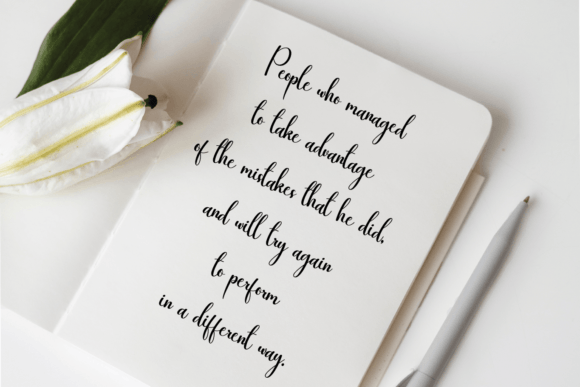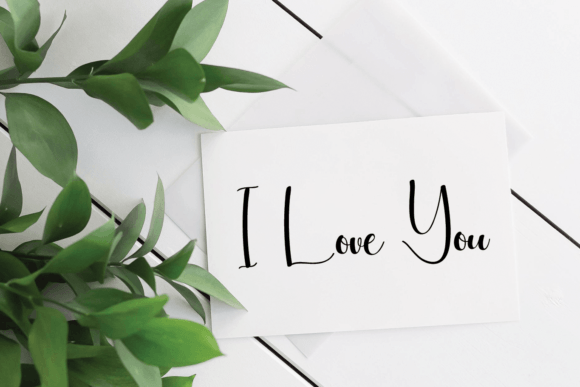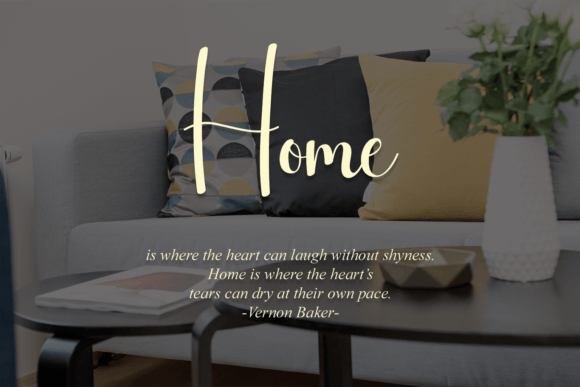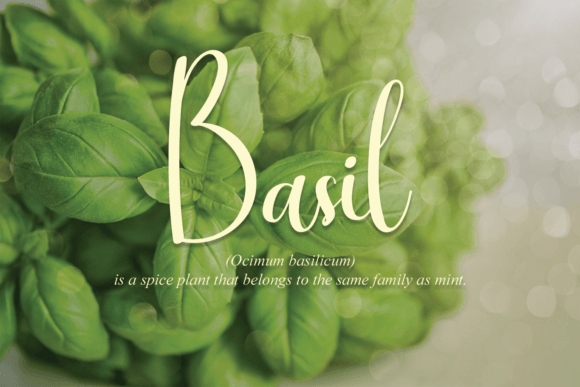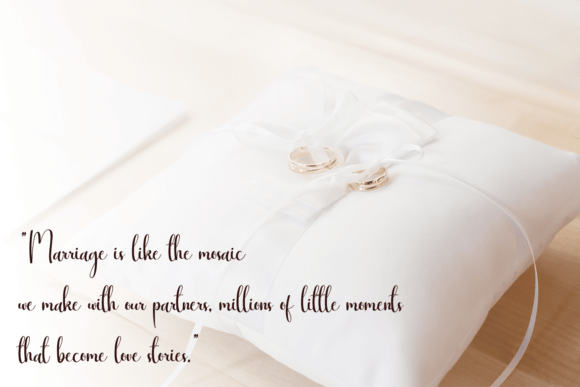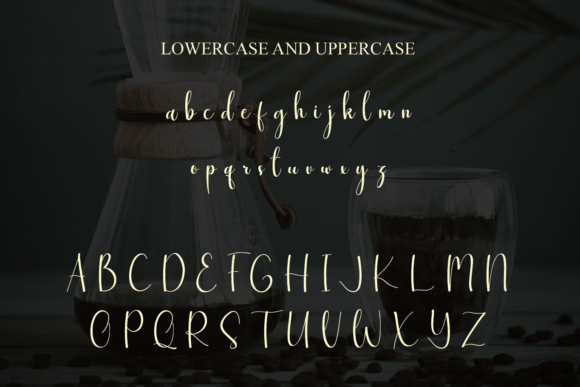
Introducing Americano Font: Elevate Your Designs with Elegance
Are you a designer or crafter looking for a font that can add a touch of sophistication and elegance to your creative projects? Look no further than Americano Font, a delicate, elegant, and flowing handwritten font that is sure to take your designs to the next level.
The Characteristics of Americano Font
Americano Font is a beautifully crafted handwritten font that boasts well-balanced characters, making it an ideal choice for a wide range of design applications. Its delicate and flowing lines give it a sense of elegance and refinement, perfect for projects that require a touch of sophistication.
Why Choose Americano Font?
So, what sets Americano Font apart from other fonts? Here are just a few reasons why designers and crafters love this font:
- Versatility: Americano Font is incredibly versatile, making it suitable for a wide range of design applications, from wedding invitations and branding materials to packaging and digital graphics.
- Elegance: The font’s delicate and flowing lines give it an air of elegance and sophistication, making it perfect for projects that require a touch of refinement.
- Readability: Americano Font is highly readable, even at small sizes, making it ideal for body text and captions.
- Uniqueness: With its unique and distinctive character set, Americano Font is sure to help your designs stand out from the crowd.
How to Use Americano Font in Your Designs
Americano Font is incredibly easy to use and can be incorporated into a wide range of design projects. Here are a few ideas to get you started:
- Wedding Invitations: Add a touch of elegance to your wedding invitations with Americano Font, perfect for formal and informal wedding stationery.
- Branding Materials: Use Americano Font to create sophisticated branding materials, such as business cards, letterheads, and packaging.
- Digital Graphics: Incorporate Americano Font into your digital graphics, such as social media graphics, blog headers, and email newsletters.
- Crafting Projects: Use Americano Font to add a personal touch to your crafting projects, such as handmade cards, gift tags, and scrapbooking pages.
Tips for Getting the Most Out of Americano Font
To get the most out of Americano Font, here are a few tips to keep in mind:
- Experiment with Font Sizes: Americano Font looks great at a range of font sizes, so don’t be afraid to experiment to find the perfect size for your design.
- Pair with Other Fonts: Americano Font pairs beautifully with other fonts, so try combining it with a bold font for headings and a clean font for body text.
- Use it for Headings and Titles: Americano Font is perfect for headings and titles, so use it to add a touch of elegance to your design.
| Font Name | Americano Font |
| Author | Majelis Font |
In conclusion, Americano Font is a beautiful and elegant handwritten font that is sure to elevate your designs to the next level. With its delicate and flowing lines, well-balanced characters, and versatility, it’s the perfect choice for designers and crafters looking for a font that can add a touch of sophistication to their creative projects. So why not give Americano Font a try and see how it can bring your designs to life?